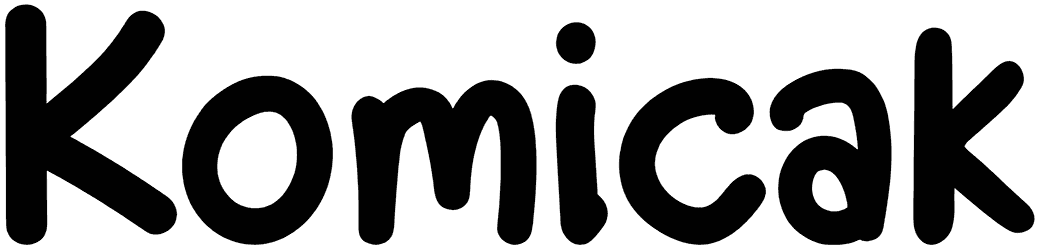
Komicak Font
Your design is going to be so soft and natural if you choose this handwritten font to decorate your words. Almost all characters are available, and you can count on this comic font for any creative project. Test the Komicak font for your next layout and surprise your followers with its unique but casual form.
This font is very fun, funny, entertaining and has a great sense of font, this font is suitable for hand drawings, posters, quotes, etc.